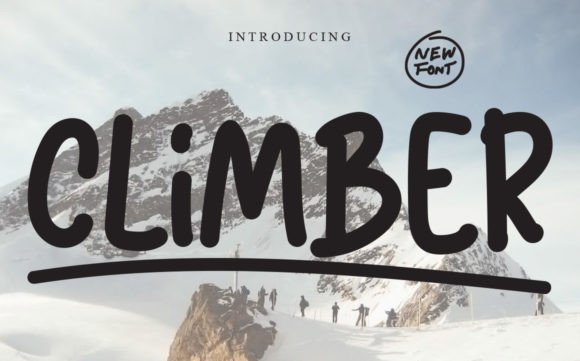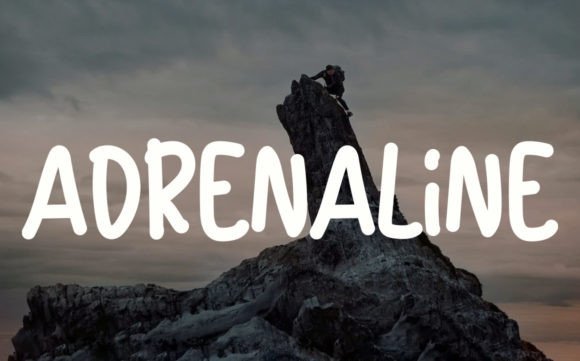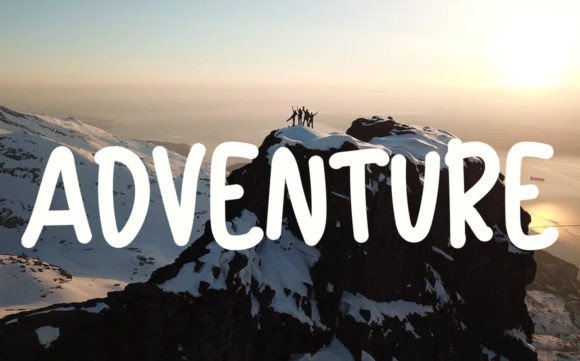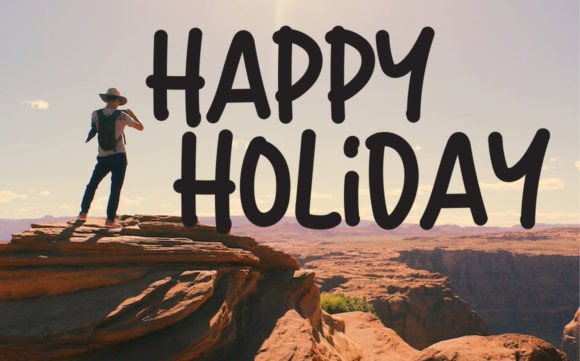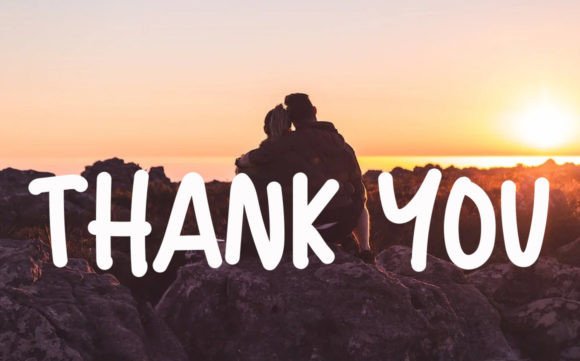
Enter the Climber Font, a sweet and romantic handwritten font that’s perfect for adding a touch of elegance to your designs. Whether you’re creating wall displays, wedding invitations, or social media post logos, Climber Font is the perfect choice for making your typography stand out. Its delicate flow and charming character make it a valuable addition to any designer’s toolkit, and its versatility means you can use it for a wide range of projects.
Climber Font Key Features
- Font Family: Climber Font is a custom-designed font family with a unique, hand-drawn feel.
- Font Size: The font family includes a range of weights, from Thin (100) to Extra Bold (900), allowing for flexibility in design applications.
- Resolution: Designed for high-resolution displays, suitable for use in digital applications such as web design, mobile apps, and video games.
- Unique Characteristics: Climber Font features distinctive, hand-drawn strokes and subtle texture, giving it a natural, organic feel.
- Character Count: The font family includes a comprehensive set of characters, including Latin, Cyrillic, and Greek alphabets, as well as punctuation and symbols.
Climber Font Review
As a designer, I was excited to dive into the Climber Font and see what it has to offer. Overall, I think it’s a solid choice for certain projects.
- Unique Design**: Climb is a one-of-a-kind font with a distinctive, hand-drawn feel.
- High-Quality Glyphs**: The font includes a wide range of glyphs and characters, including international support.
- Compact Footprint**: Despite its unique design, Climb is surprisingly compact, making it easy to use in a variety of contexts.
- Limited Readability**: While Climb is a beautiful font, its unique design can sometimes make it difficult to read, especially at small sizes.
- No Clear Line Weight**: The font’s line weight can be inconsistent, which can affect the overall legibility.
Overall, I think Climb is a great choice for projects where you want to add a touch of personality and whimsy. However, it may not be the best choice for projects that require high levels of readability or consistency.
Getting the Most Out of Climber Font
To get the most out of the Climber Font, try using it in combination with bold or italic styles to create visual interest. You can also experiment with different font sizes and colors to create a unique look.
The Climber Font is ideal for use in outdoor or adventure-themed designs, such as posters, flyers, or brochures. It’s also great for use in fitness or wellness-related designs, such as workout plans or nutrition guides.